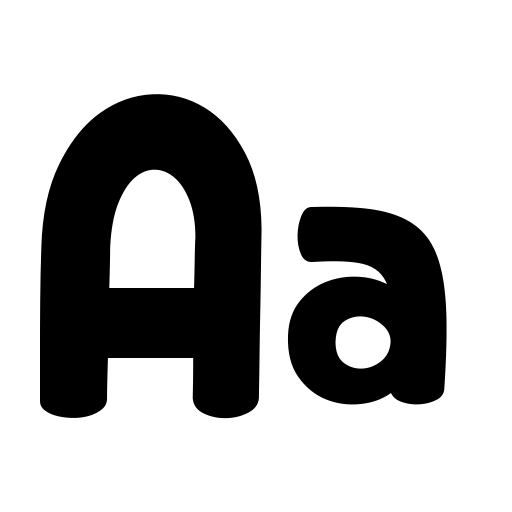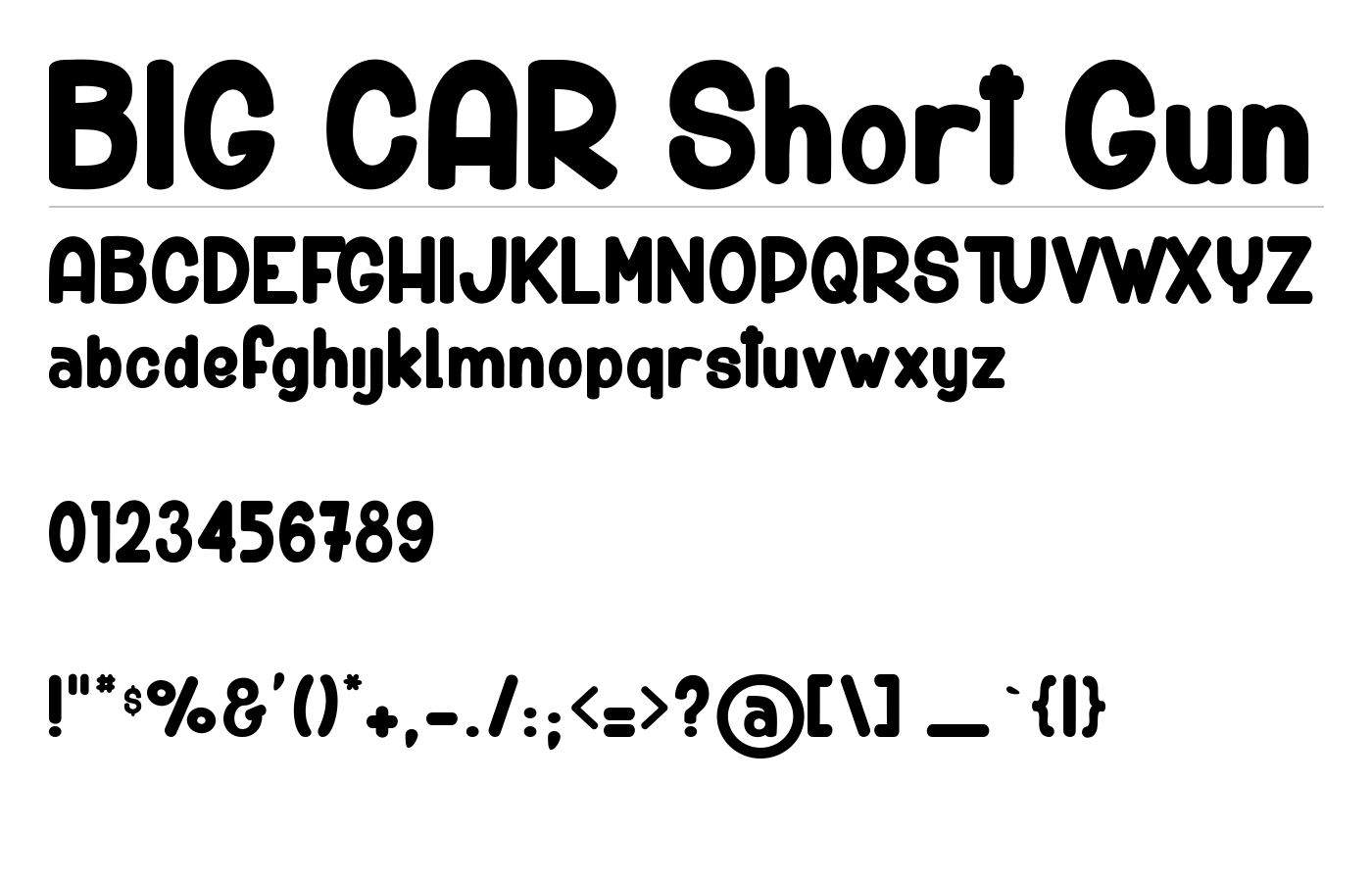
BIG CAR Short Gun is a bold, rounded sans-serif font with playful, slightly quirky letterforms that bring a friendly and approachable vibe. Its consistent stroke weight and wide proportions make it ideal for eye-catching headlines, logos, and branding that seeks a fun and informal personality. This font works especially well in creative projects and casual settings where a lively and modern feel is desired.
BIG CAR Short Gun Font
About BIG CAR Short Gun Font
| Font family | BIG CAR Short Gun Font |
| Designer | dcoxy Medina Gregory |